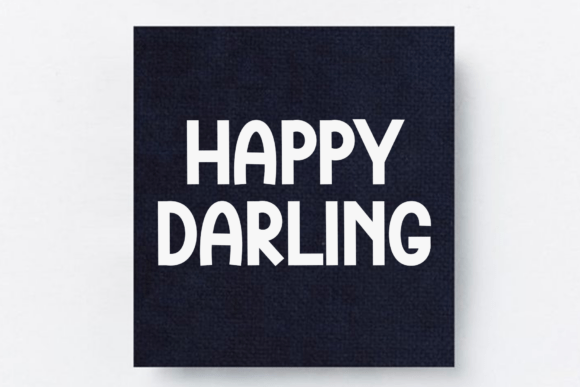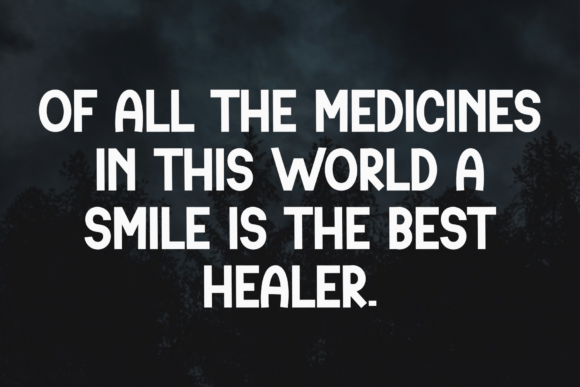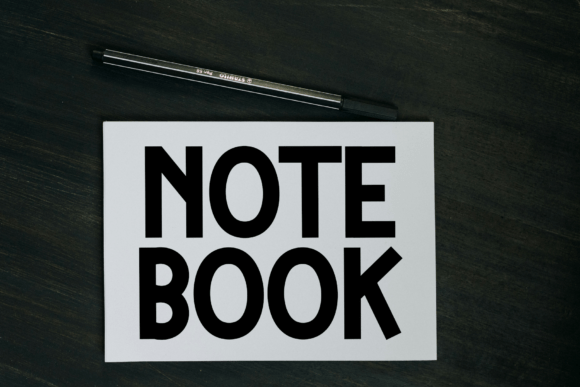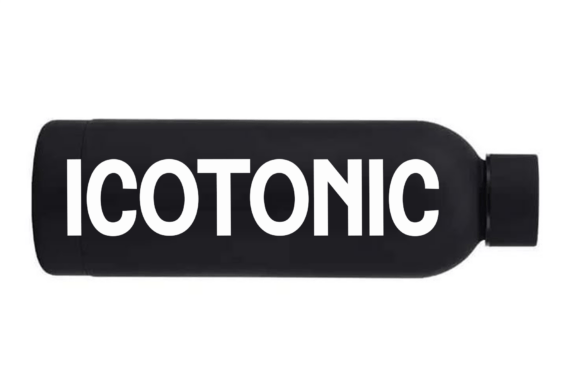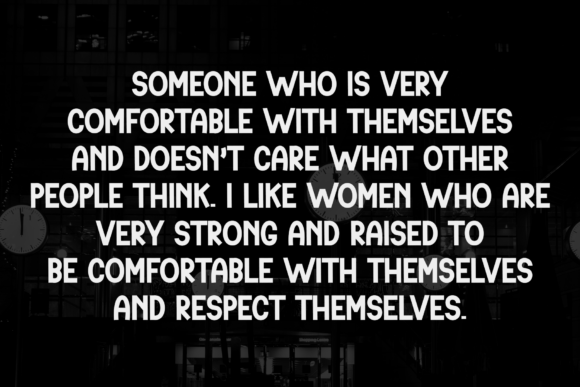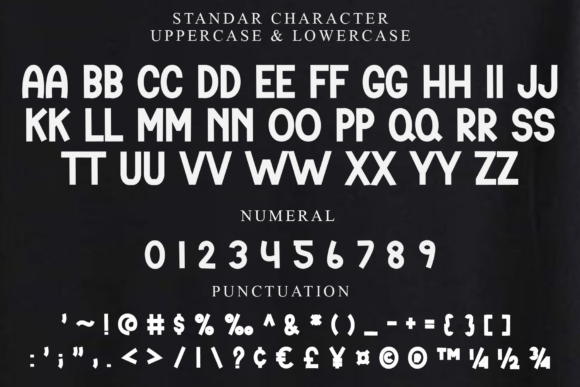
Discover the Joy of Black Line Font
Have you ever found yourself staring at a blank canvas, trying to come up with the perfect design to capture the essence of a special moment? Perhaps it’s a birthday invitation, a wedding announcement, or a social media post celebrating a new chapter in life. Whatever the occasion, the right font can make all the difference in conveying the emotions and tone you want to convey.
Enter the Black Line Font, a charming and creative font that exudes warmth and friendliness. Its round, playful strokes create a relaxed and approachable feel, making it perfect for personal projects and social media graphics. With its hand-drawn aesthetic, the Black Line Font adds a fun and unique touch to any design. Whether you’re a seasoned designer or a creative enthusiast, this font is sure to become a valuable addition to your toolkit.
Black Line Font Key Features
- Font Style: Black Line Font is a sans-serif font with a distinctive, bold appearance.
- Unique Characteristics: Features a unique, bold line style that makes it stand out in digital and print applications.
- Font Weight and Italic: Available in regular and bold font weights, with an italic style for added versatility.
Designer Review: Black Line Font
Overall, I think Black Line Font is a solid choice for designers looking for a clean and modern sans-serif font. Here’s what works well:
- ✨ The font is incredibly versatile and can be used for a wide range of applications, from body text to headings.
- ✨ The clean lines and simple shapes make it easy to read, even at small font sizes.
- ✨ The font is highly customizable, with a range of weights and styles available to suit different design needs.
- ⚠️ The font may not be suitable for use in situations where a more traditional or ornate font is required.
- ⚠️ Some users have reported issues with the font’s legibility at very small font sizes.
- ⚠️ The font’s simplicity may make it less effective for use in situations where a lot of emphasis is required.
Overall, I would give Black Line Font 4 out of 5 stars. While it has some limitations, its versatility and clean design make it a great choice for many designers. With a little experimentation and customization, I think it has the potential to be a real showstopper.
The Black Line Font is commonly used for:
- Creating bold, modern headings and titles
- Adding a touch of elegance to formal documents and presentations
- Designing minimalist and clean graphics and logos